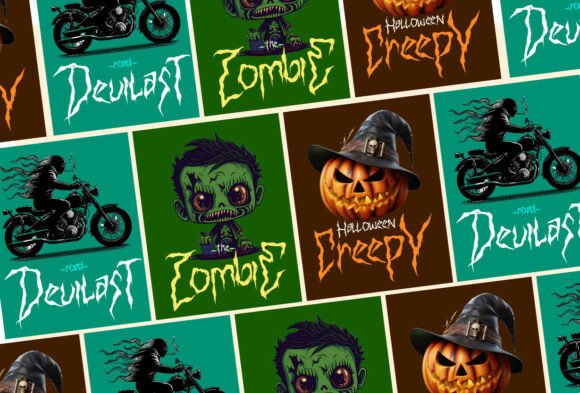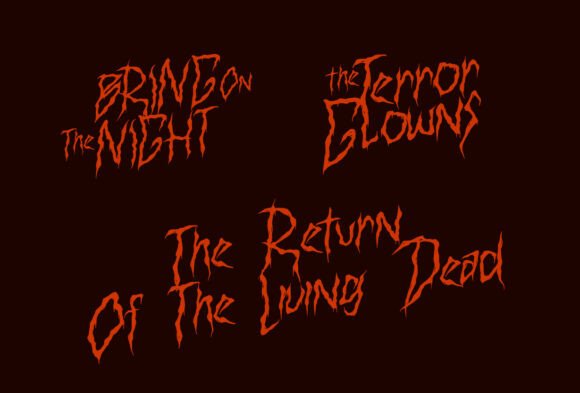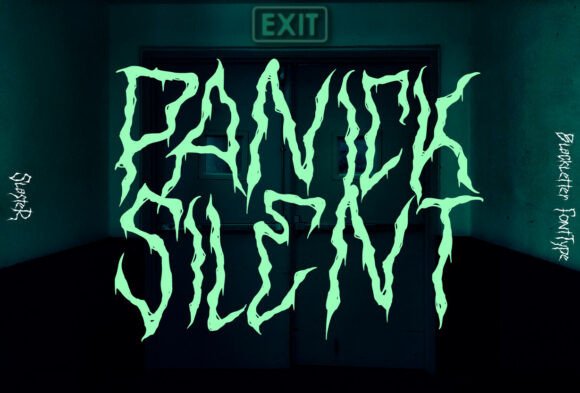
Introduction to Slaster Font
Give your audience a genuine fright with Slaster , a chilling horror display font designed to deliver pure terror.
This Slaster typeface features aggressive, jagged letterforms that look as if they were frantically carved into a wall or slashed by a killer’s blade It is the definitive choice for horror movie titles, thriller book covers, and spine-tingling Halloween event branding.
Slaster Font offers exceptional quality and versatility, making it a valuable addition to your design toolkit. Whether you’re creating for personal projects or commercial use, Slaster Font delivers professional results.